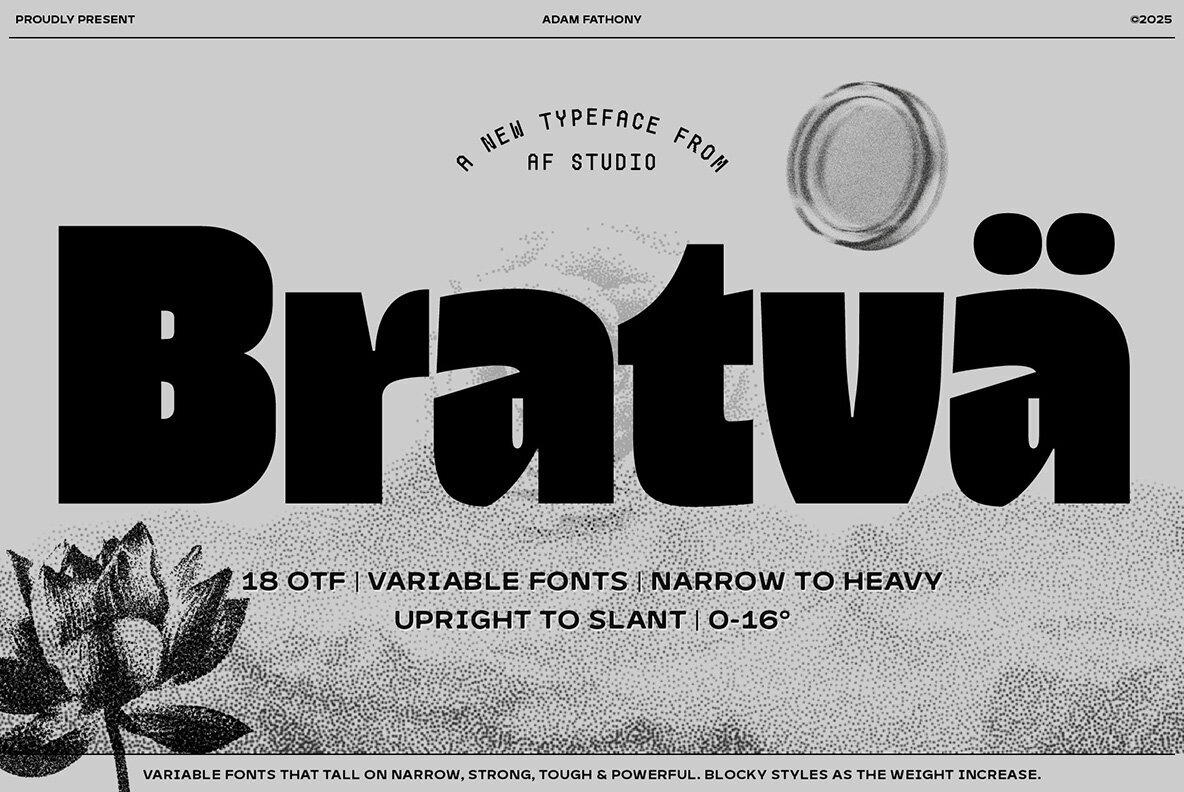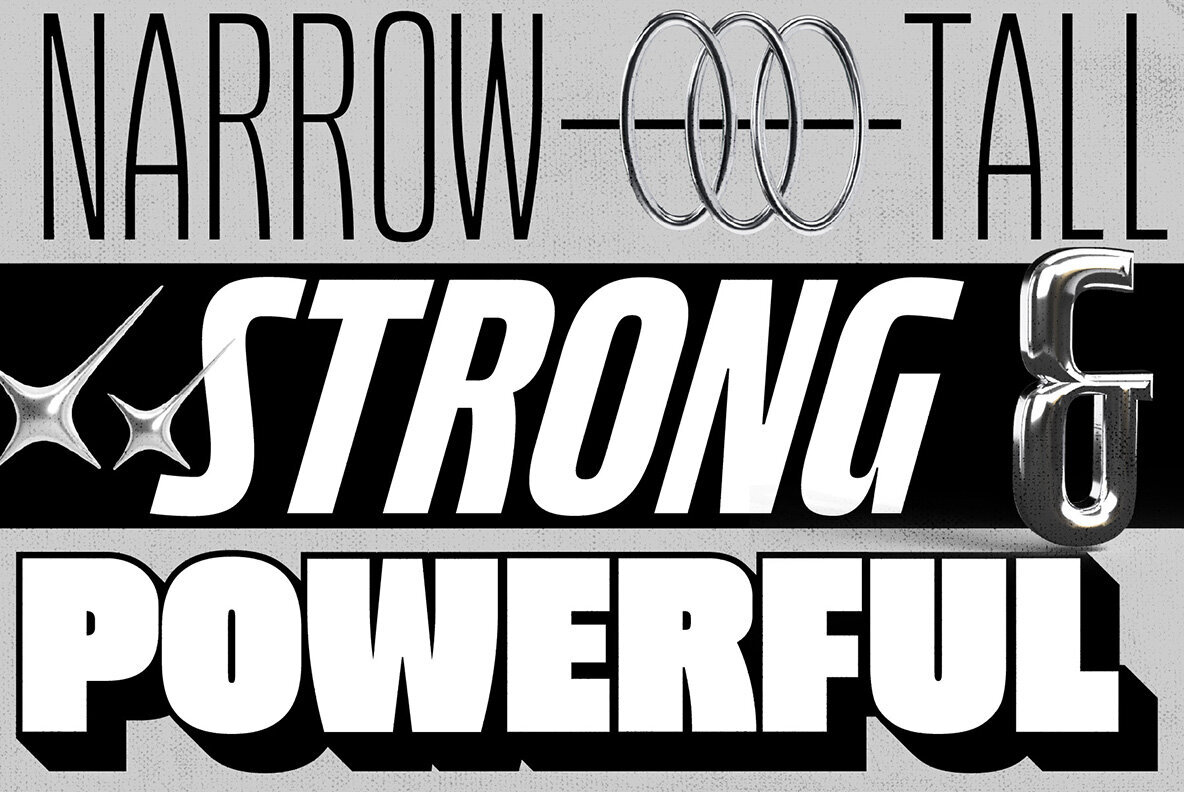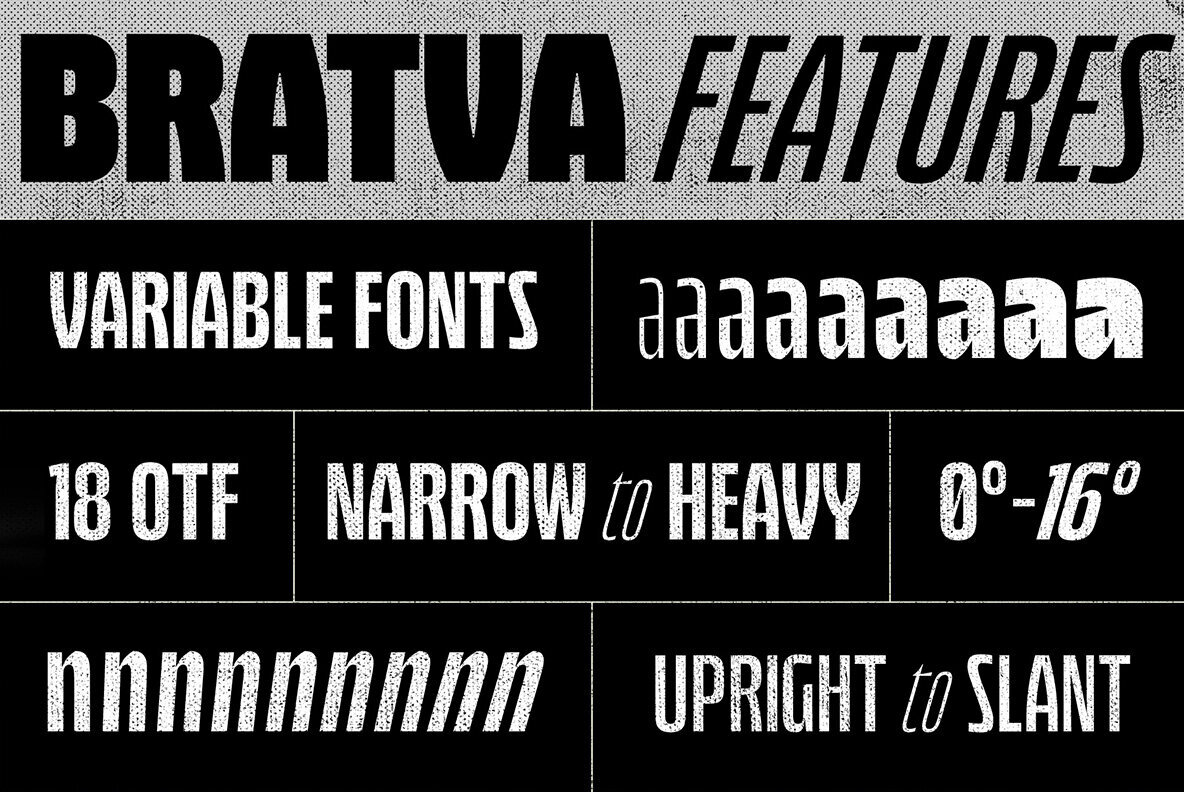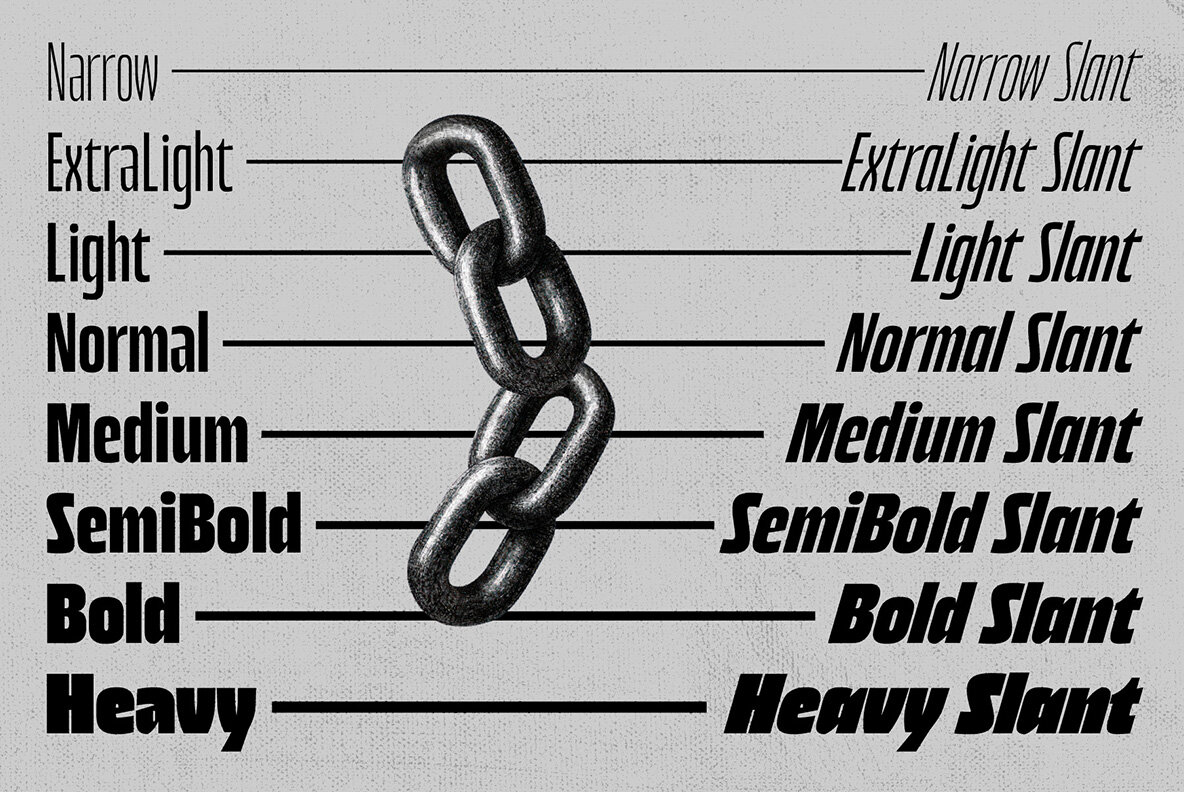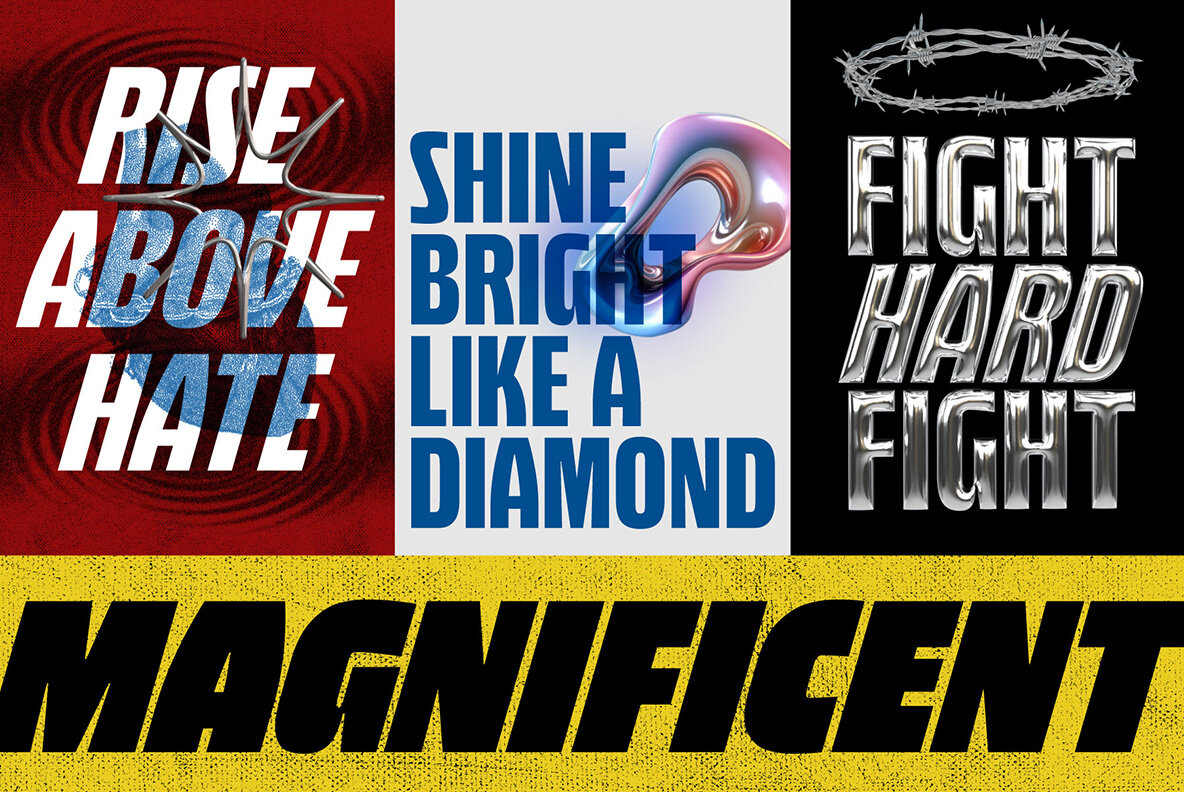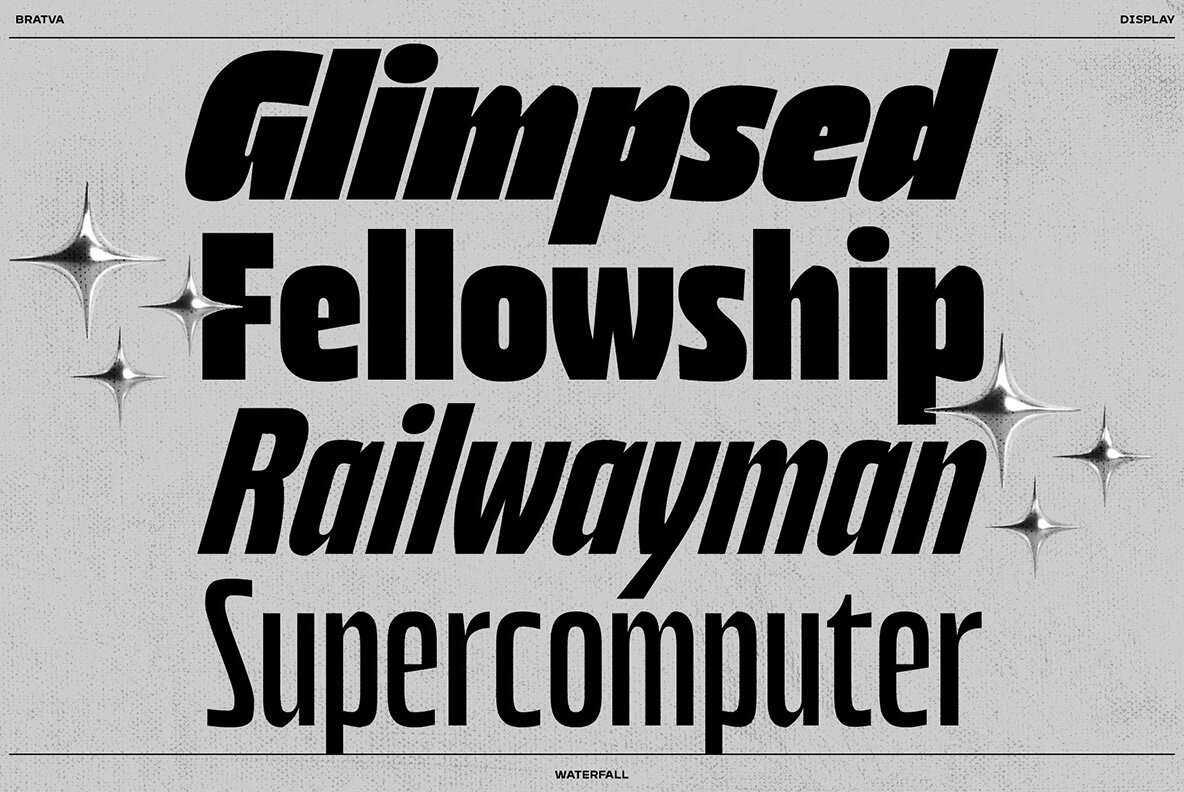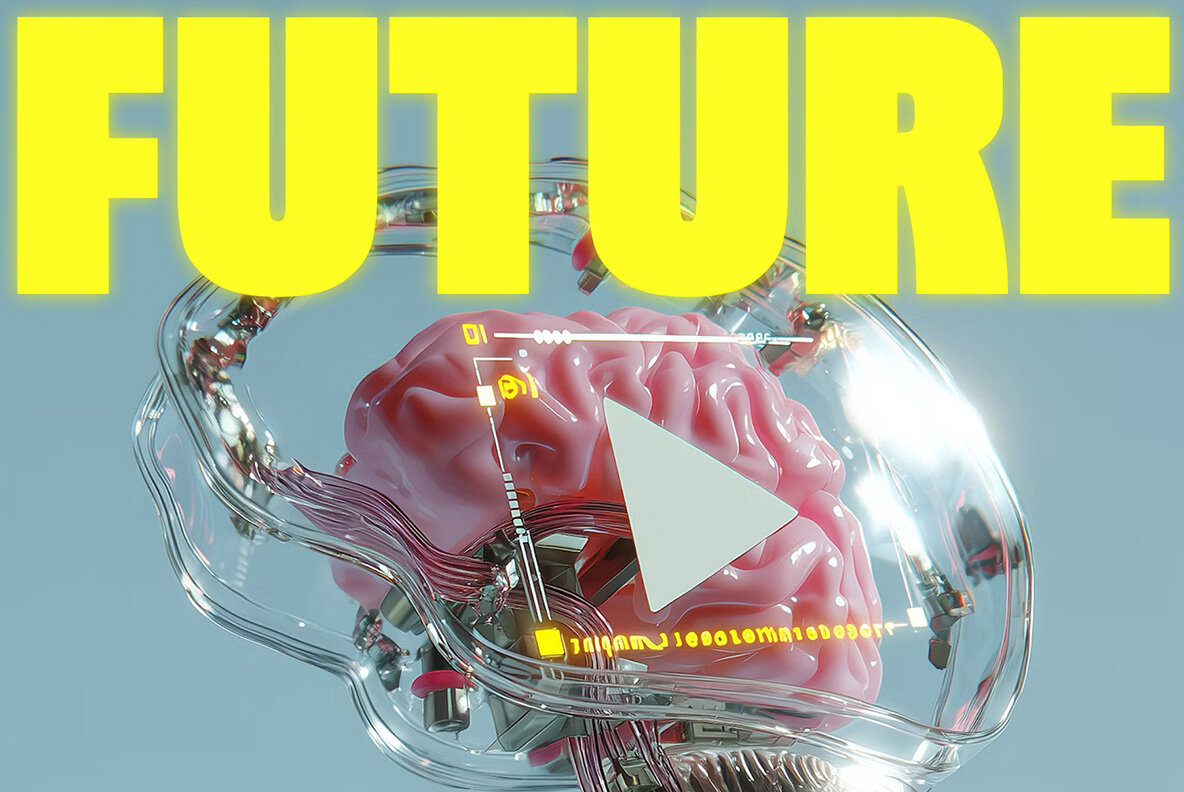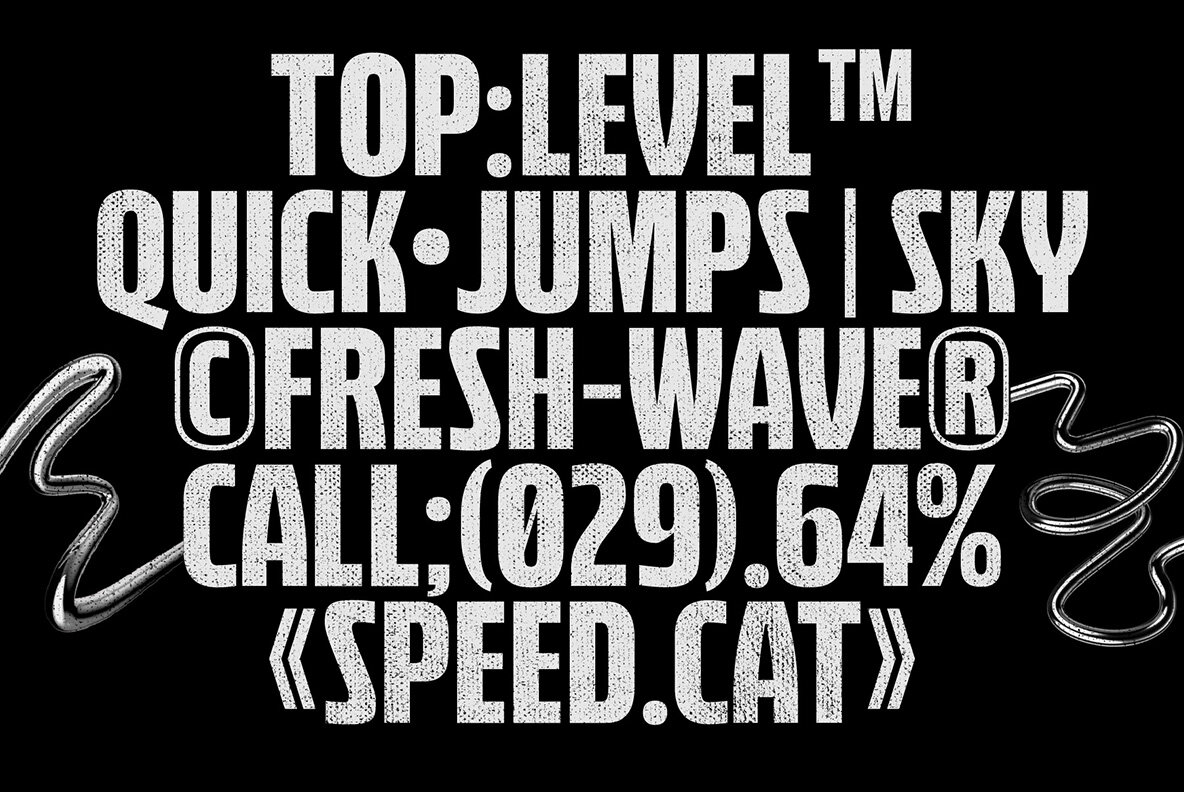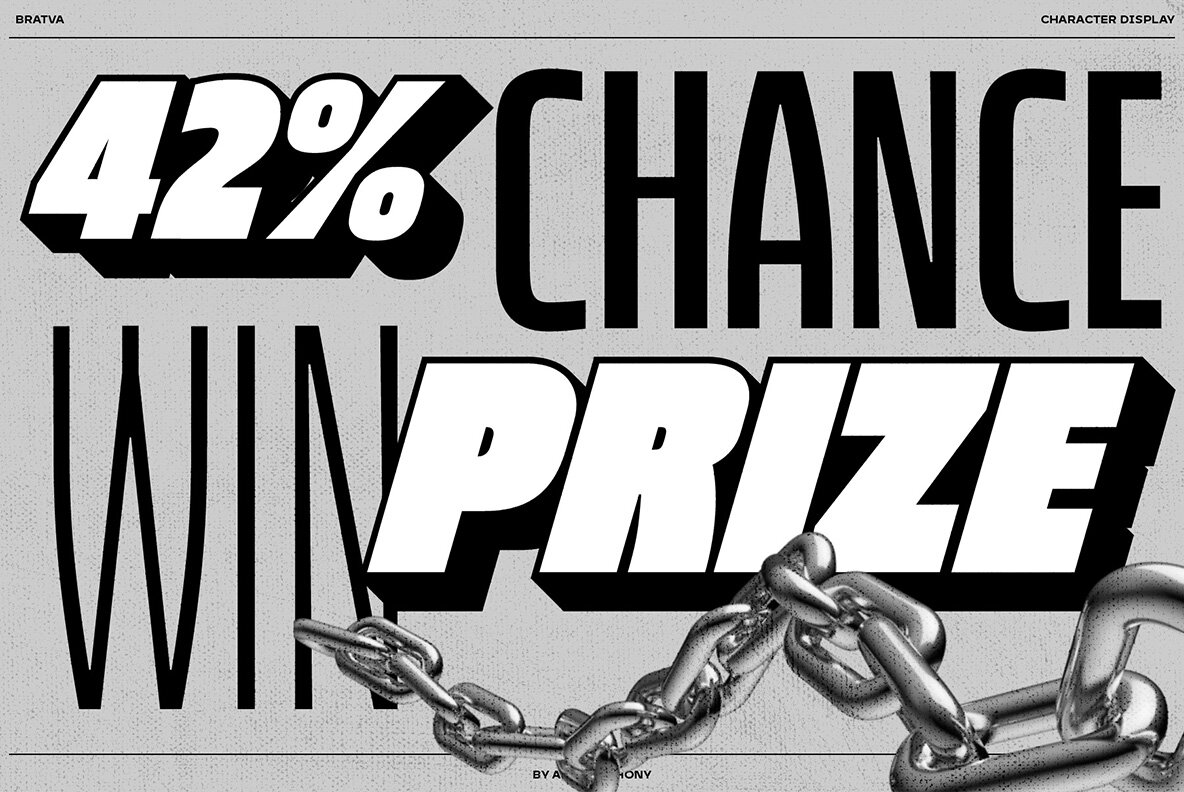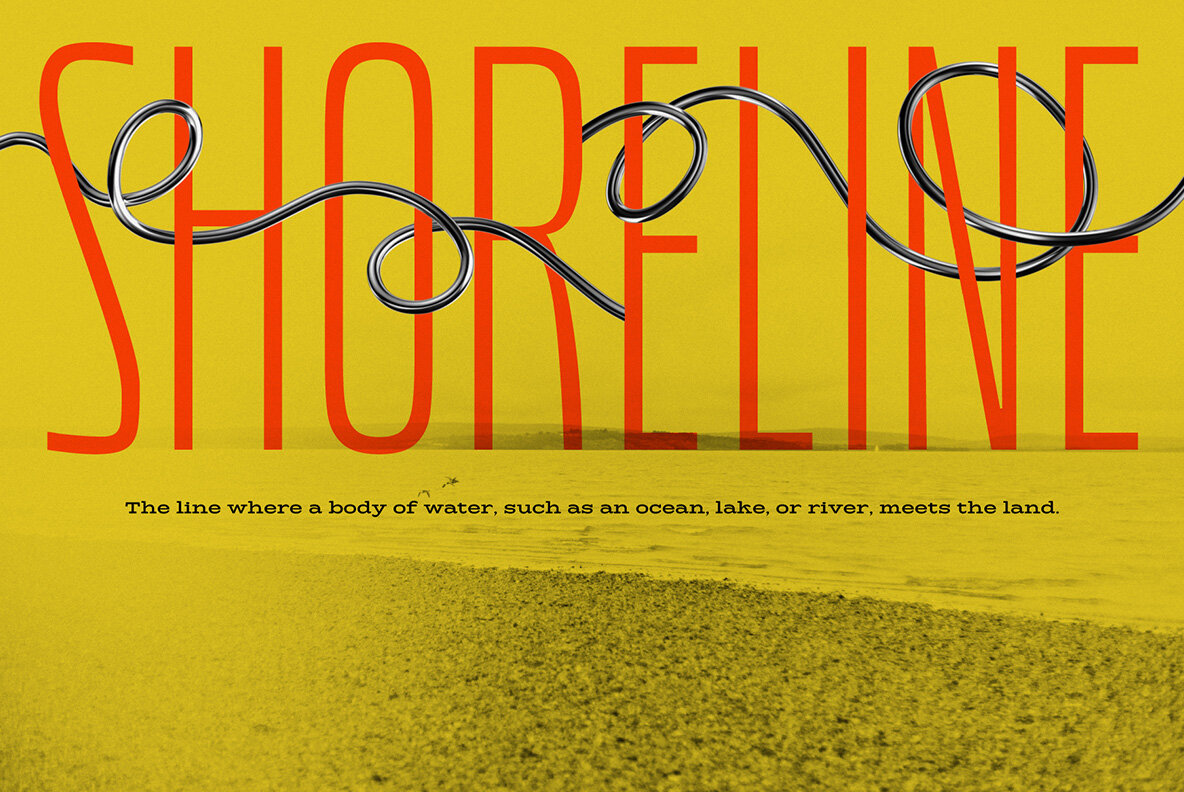
Bratva Font
Bratva is a commanding variable font family tailored for designers seeking visual prominence in their projects. Its strong geometric construction and adaptability across widths and weights make it suitable for headline typography, brand identities, poster layouts, and display use. By offering both slanted and upright cuts, Bratva lends itself to projects requiring distinctive energy and clarity. The wide range of options empowers creatives to fine-tune visual tone for diverse media applications.Bratva Variable Font: Bold Impact for Headlines and Branding